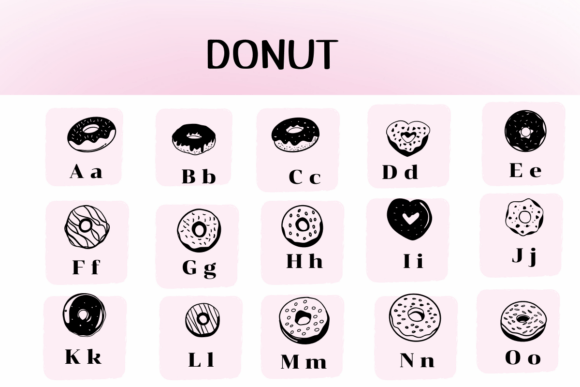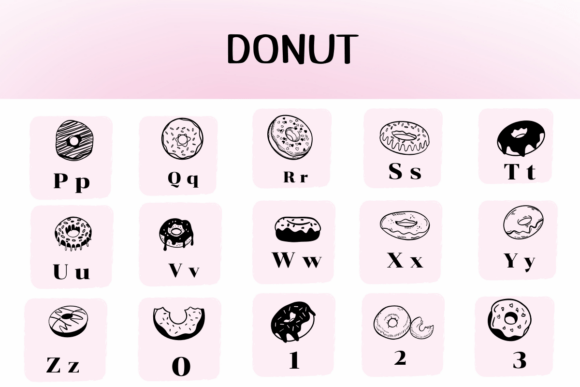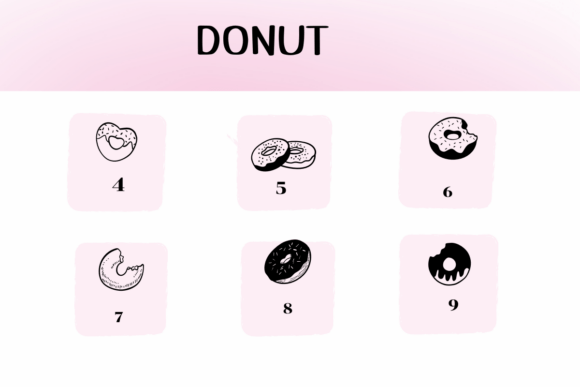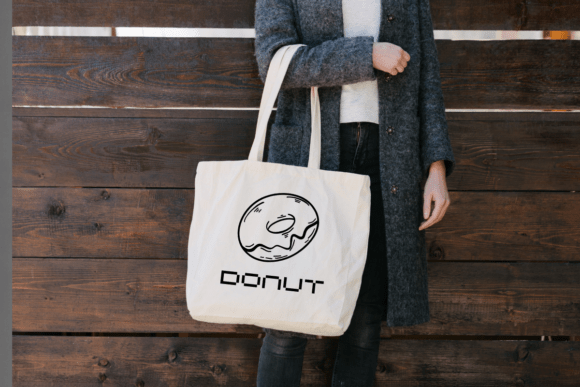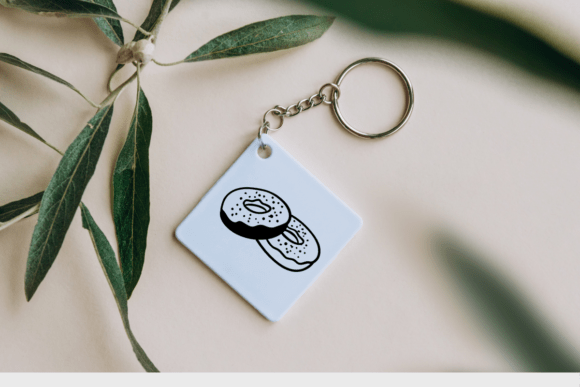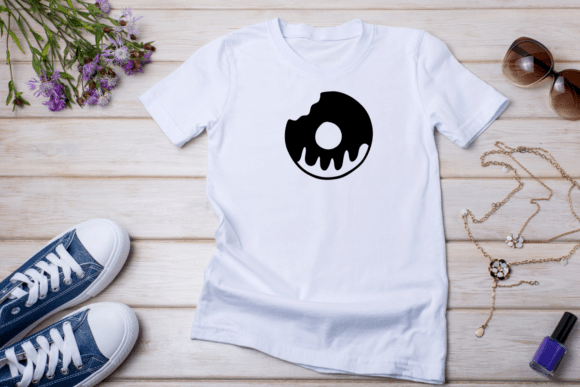
Get Ready to Indulge in Sweet Creativity with the Donut Font
You know that moment when a creative spark strikes and you can’t wait to bring your idea to life? For many designers, that moment often comes when brainstorming a unique and eye-catching project. Perhaps it’s a wedding invitation that needs a playful twist or a DIY craft that requires a dash of whimsy. Whatever the project, having the right tools can make all the difference.
Enter the Donut Font, a delicious dingbats font that’s sure to add a touch of sweetness to your creative endeavors. With its yummy style, this font is perfect for designers looking to add a playful and modern flair to their projects. From wedding invitations to DIY crafts and decorations, the Donut Font is a valuable addition to any designer’s toolkit.
Key Features of Donut Font
- Unique Characteristics: Donut Font features a unique, playful design with rounded edges and a friendly feel, making it perfect for food, dessert, and bakery branding.
- Character Set: Donut Font includes a comprehensive character set, including uppercase and lowercase letters, numbers, punctuation, and special characters.
Designer Review: Donut Font
Overall, I’m a bit torn about the “Donut Font”. On one hand, I appreciate the unique, whimsical feel it brings to digital designs. ✨ The font’s playful curves and irregularities make it stand out from more traditional serif or sans-serif fonts.
The Donut Font is particularly well-suited for branding and marketing materials where a lighthearted, approachable tone is desired. It’s also a great choice for social media graphics, where a touch of personality can go a long way.
While the Donut Font is charming, it’s not without its limitations. ⚠️ Here are a few things to consider:
- Readability: In smaller font sizes, the Donut Font can become difficult to read, especially for longer blocks of text.
- Consistency: The font’s irregularities can make it challenging to achieve a consistent look across different elements of a design.
- Pairing: The Donut Font may not pair well with more traditional fonts, which can create an inconsistent visual identity.
Overall, the Donut Font is a fun, experimental choice for designers looking to add some personality to their work. However, it’s essential to consider its limitations and use it judiciously to achieve the desired effect.
Tip: Use the Donut Font to add a playful touch to your Canva designs, such as in food-related graphics or children’s party invitations.
Tip: Use the Donut Font to create whimsical and fun designs, such as in illustrations or graphics for food-related businesses.
Tip: Use the Donut Font to add a playful touch to your presentations or documents, such as in food-related projects or children’s educational materials.
The Donut Font is ideal for:
- Food-related graphics and designs
- Children’s party invitations and decorations
- Whimsical and fun illustrations
- Playful presentations and documents